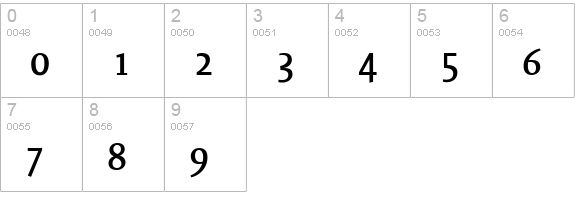
Sheriff-Roman Font Details
Introducing Sheriff-Roman, a timeless font that exudes elegance and sophistication. With its classic yet modern design, this typeface is perfect for adding a touch of refinement to any project. The clean lines and balanced proportions of Sheriff-Roman make it versatile and suitable for a wide range of applications. Whether you're designing a logo, creating a brand identity, or working on a print project, Sheriff-Roman will elevate your work to new heights. Its legibility and readability ensure that your message is conveyed with clarity and professionalism. The attention to detail in each letterform showcases the craftsmanship behind this font, making it a true work of art. One of the best things about Sheriff-Roman is that it is freely available to download at FontsMarket.com. This means that you can access this exceptional font without any cost, making it a valuable resource for designers, creatives, and anyone in need of high-quality typography. With Sheriff-Roman, you can unleash your creativity and bring your visions to life, all without breaking the bank. So, why settle for ordinary when you can have extraordinary? Download Sheriff-Roman today from FontsMarket.com and experience the beauty and versatility of this stunning font. With its seamless blending of tradition and modernity, Sheriff-Roman is sure to leave a lasting impression on your audience. Elevate your designs, enhance your projects, and make a statement with this remarkable typeface.